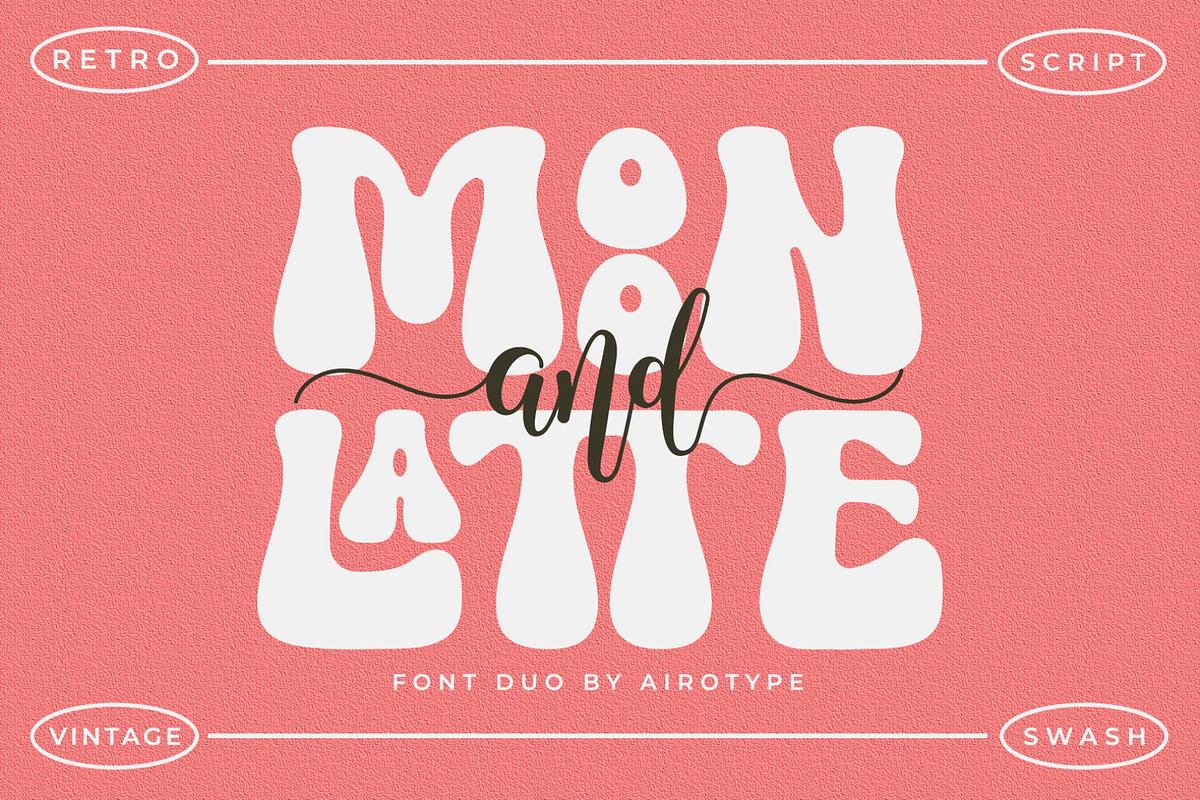
Moon and Latte – Retro & Script Duo Free Download is a charming typeface pair that perfectly blends vintage flair with handwritten elegance. This duo includes a bold retro-style display font and a smooth, flowing script—making it perfect for logos, posters, café menus, social media graphics, and nostalgic branding projects.
The playful contrast between the two styles allows for endless creative combinations. Whether you're aiming for a cozy, handmade vibe or bold retro energy, Moon and Latte delivers with versatility and personality. It supports multilingual characters and works seamlessly on both Mac and Windows systems.